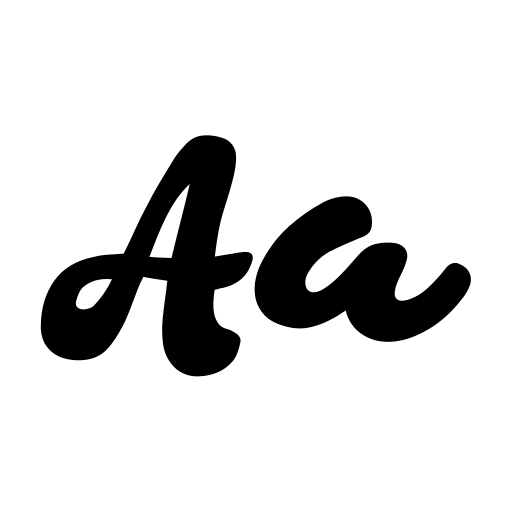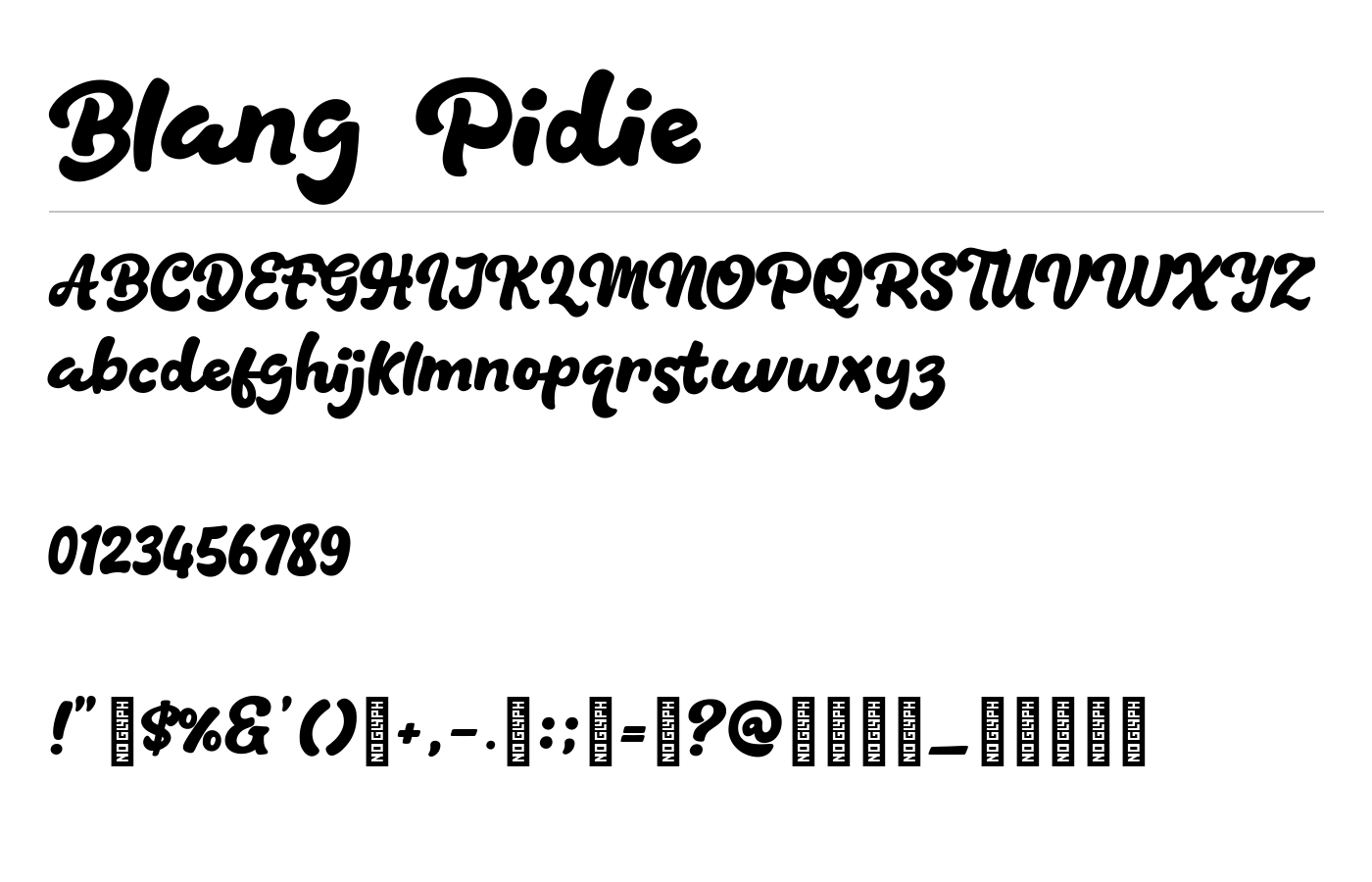
Blang Pidie is a bold, playful script font with smooth, rounded strokes and a lively, handwritten feel. Its connected letterforms and moderate contrast create an inviting and casual style, ideal for brand identities, packaging, and eye-catching headlines that want to convey friendliness and warmth. This font works well for projects seeking a fun yet polished appearance with a touch of personality.
Blang Pidie Font
About Blang Pidie Font
| Font family | Blang Pidie Font |